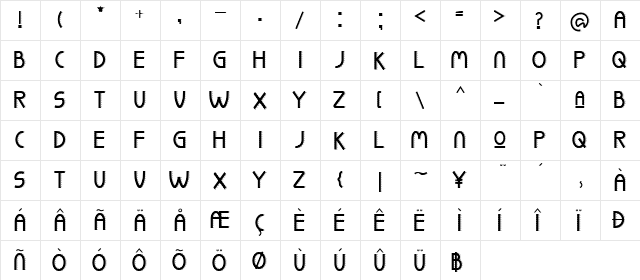
SAYURKOL Demo
Design Context for SAYURKOL Typeface
SAYURKOL is a composed and adaptable typeface that performs quietly and consistently across a wide range of design contexts.